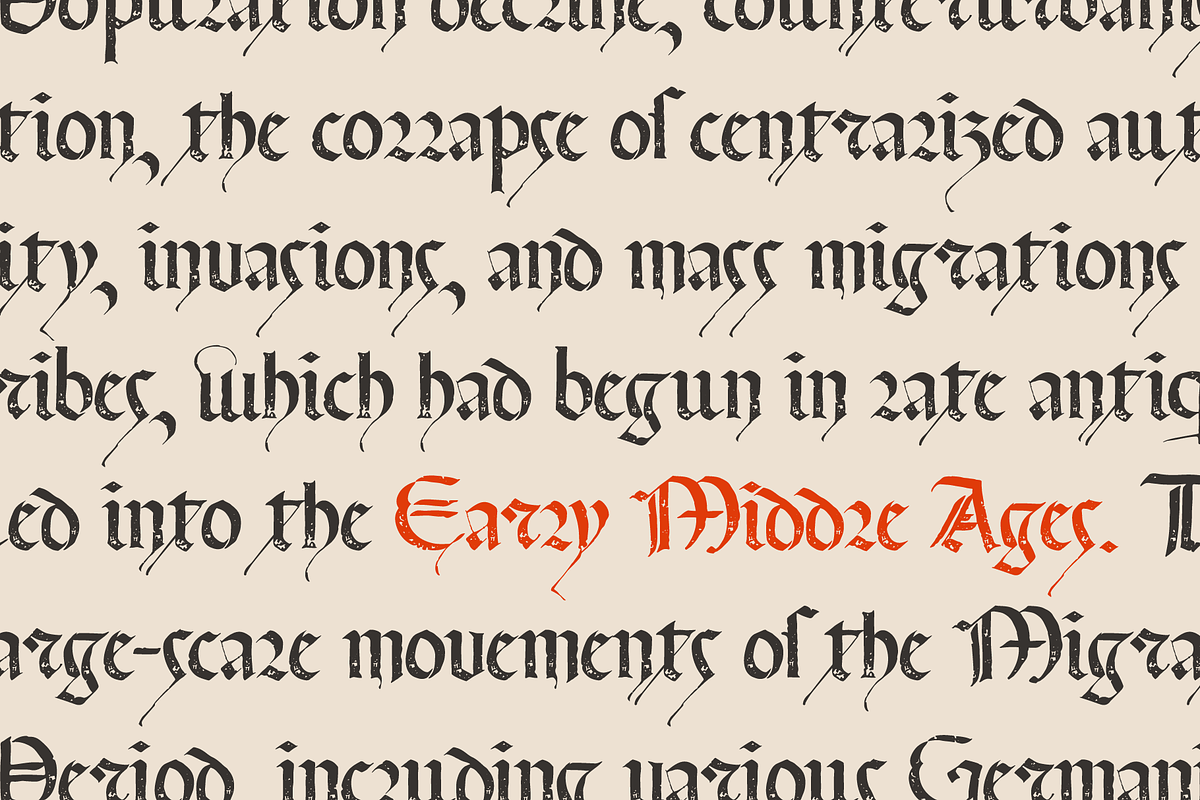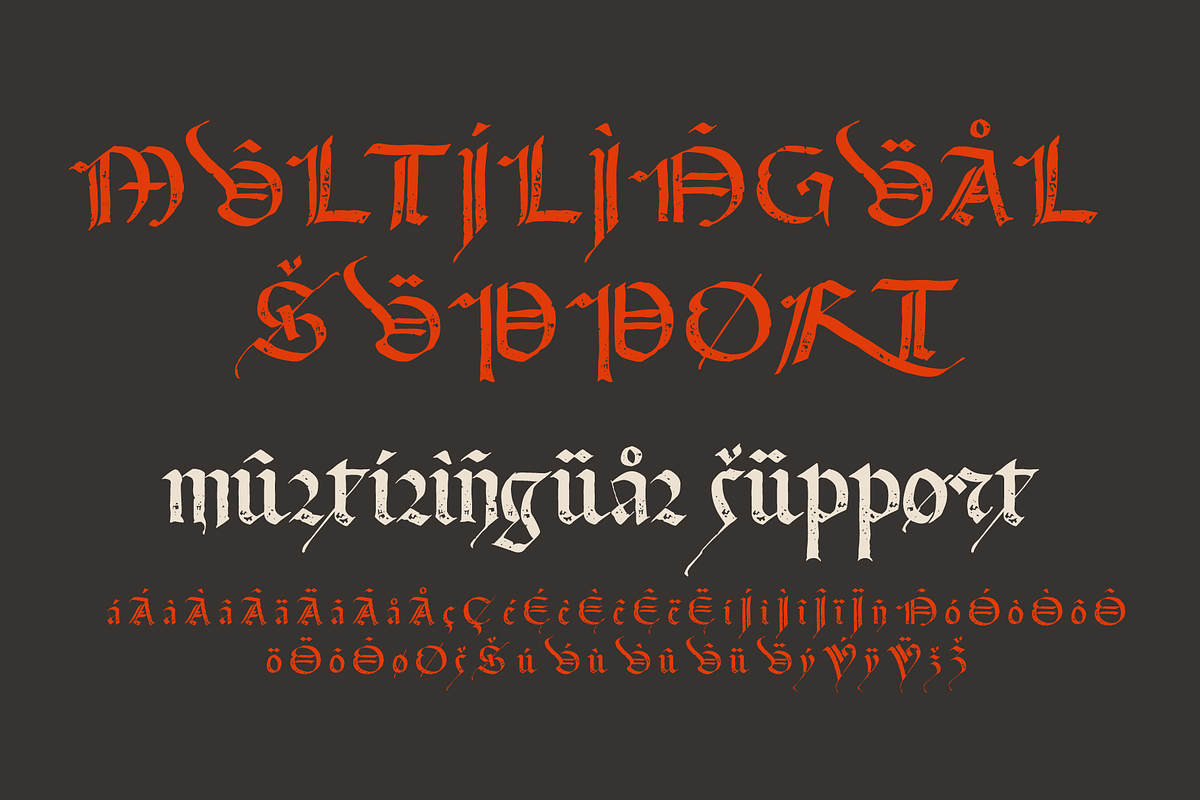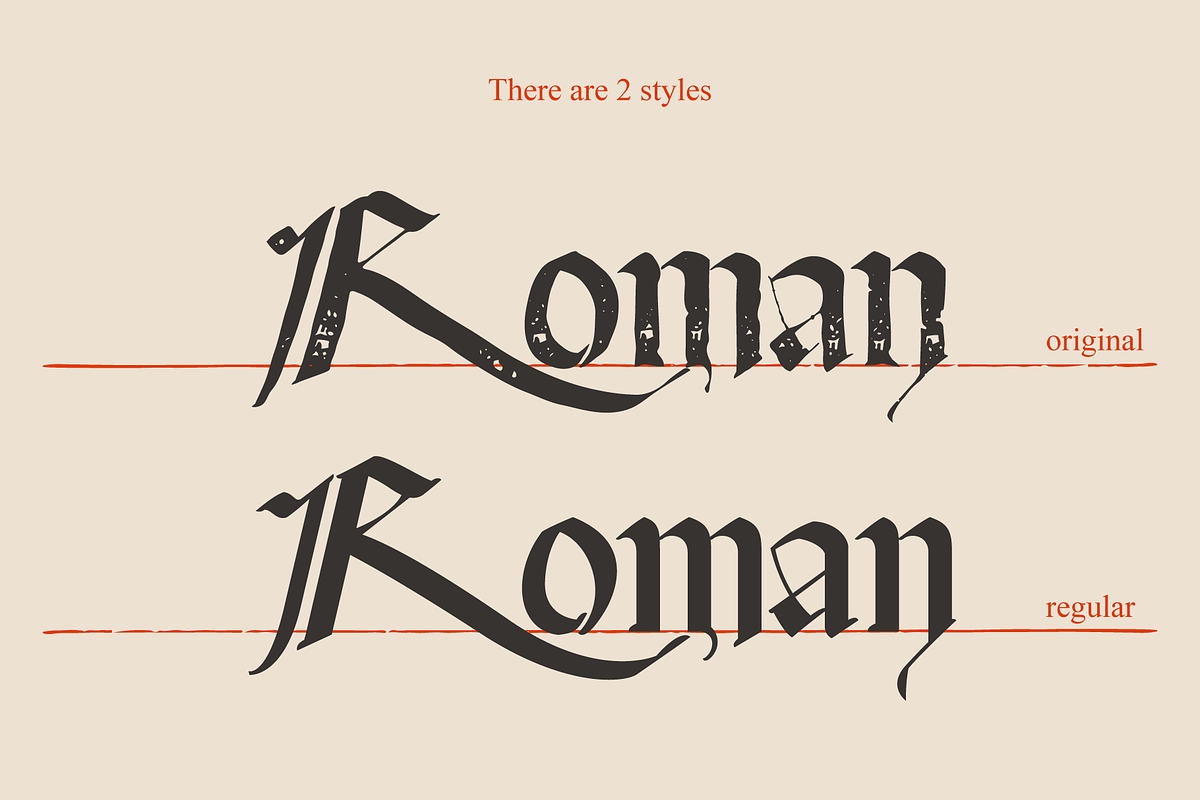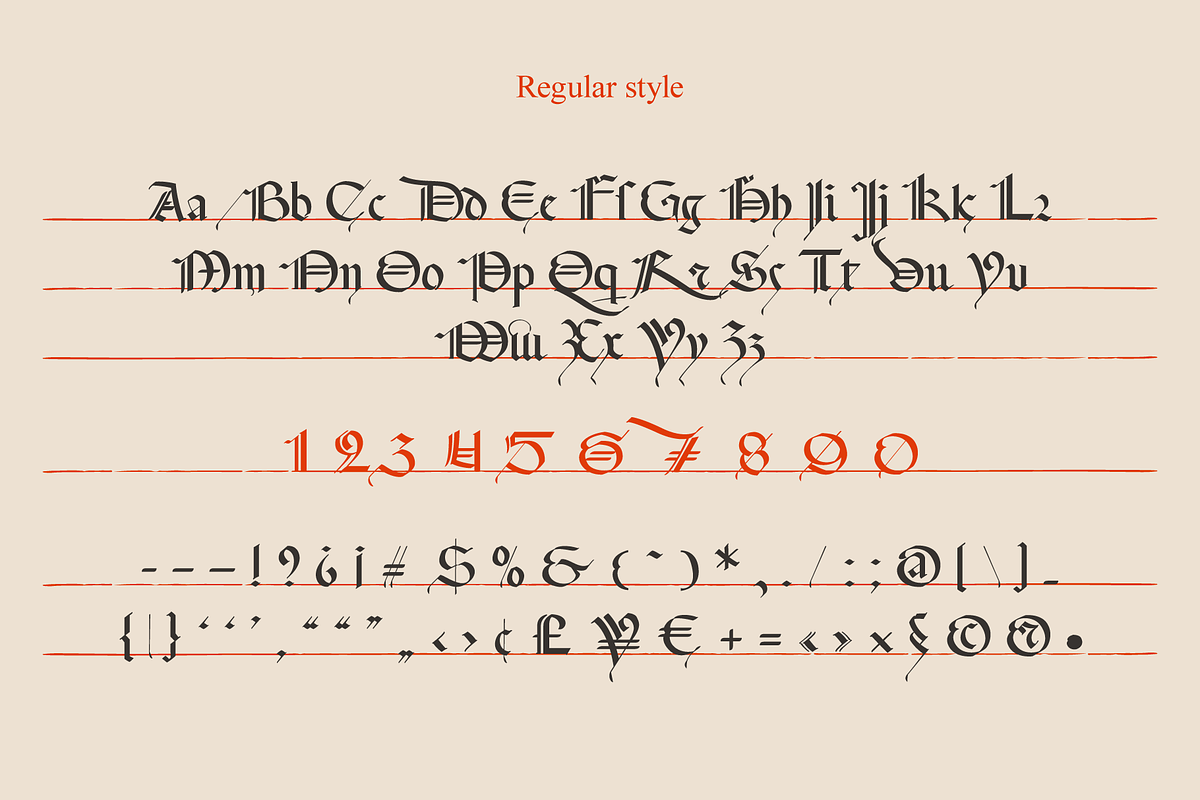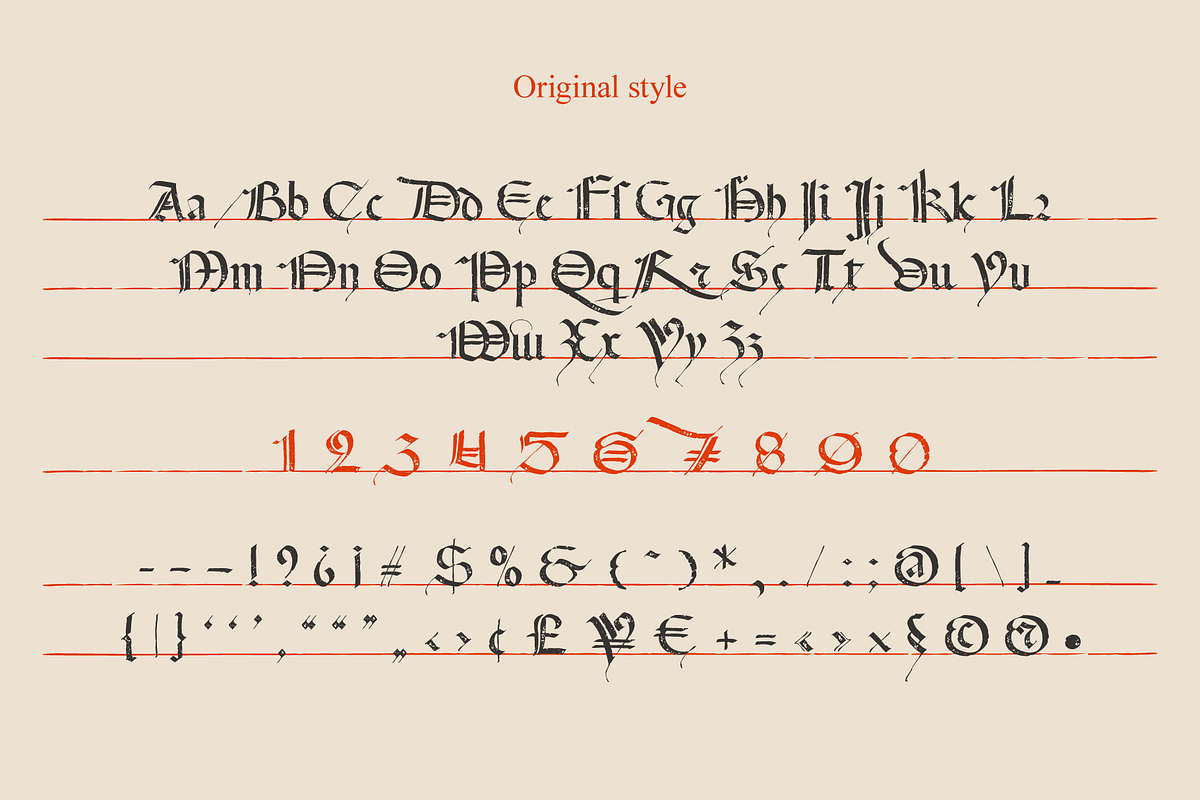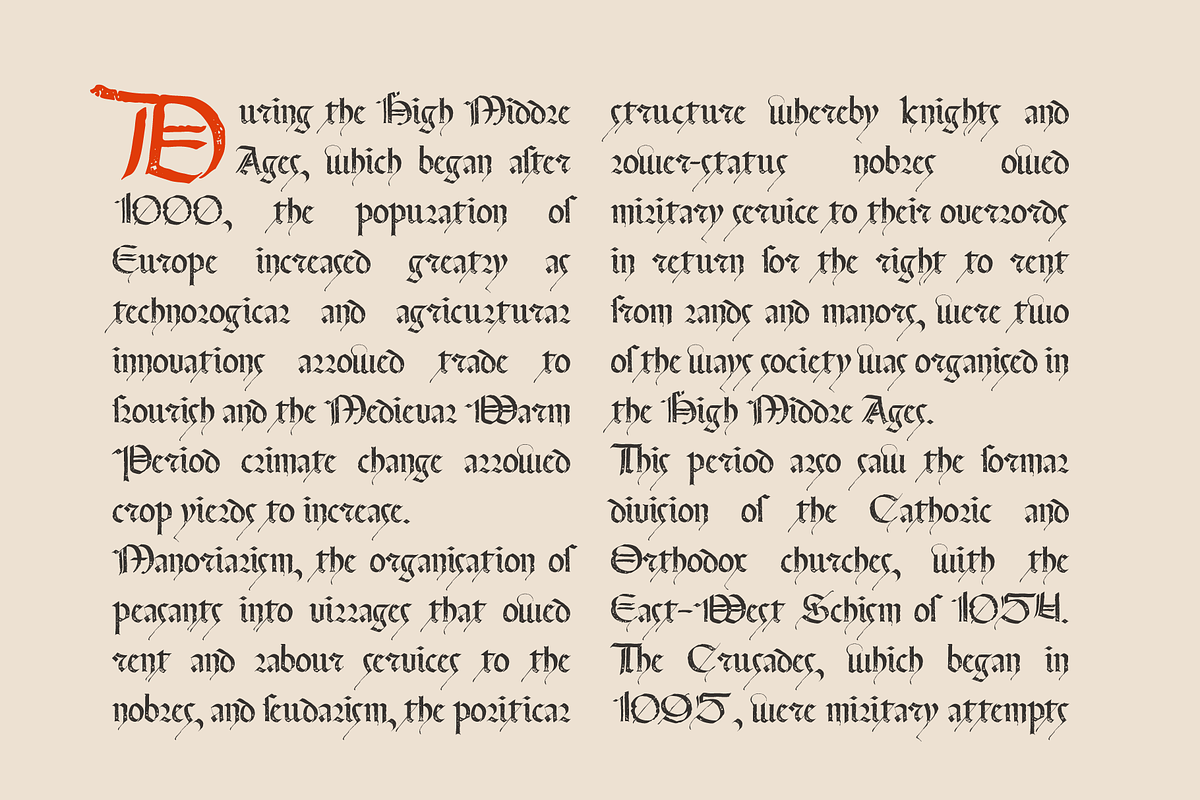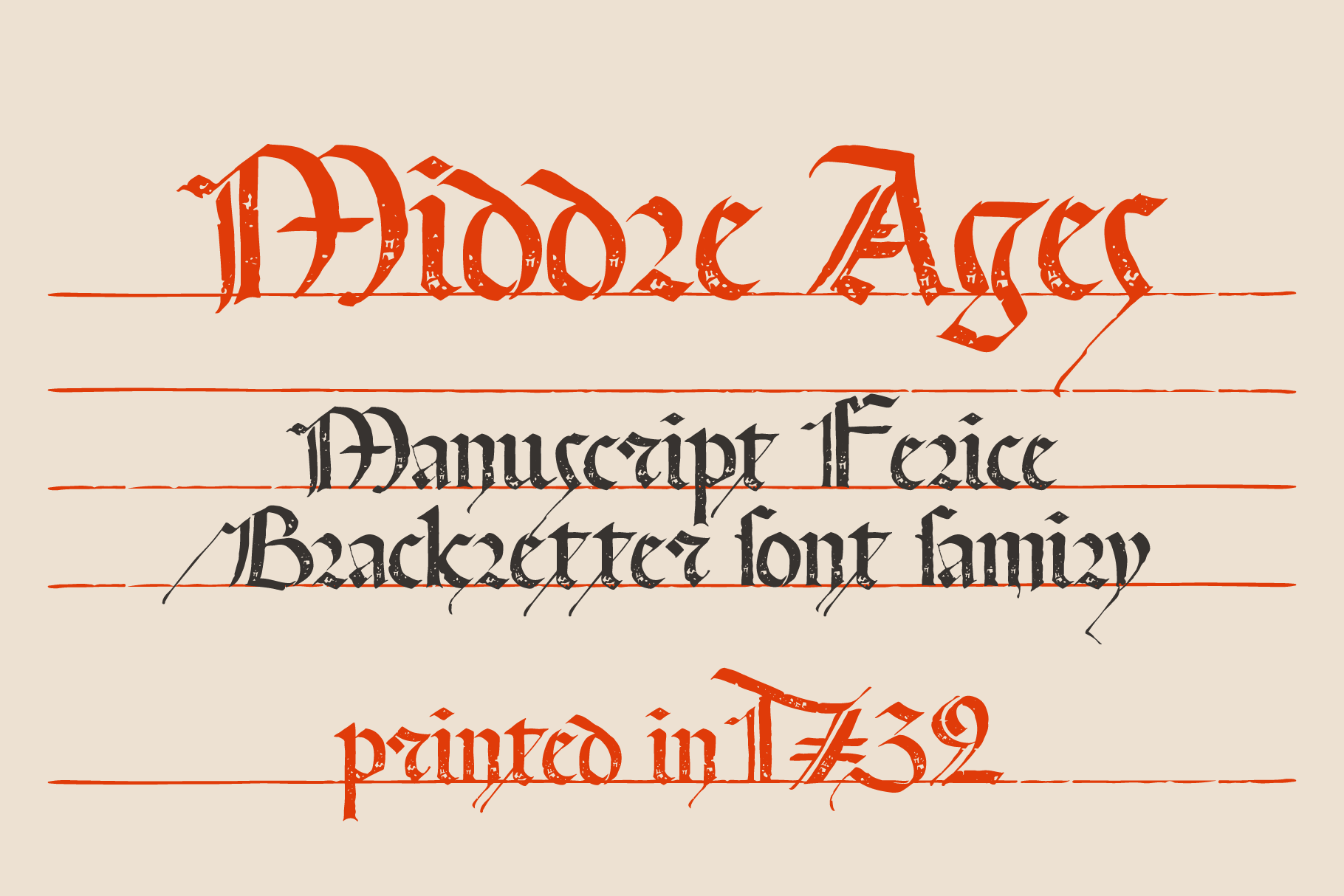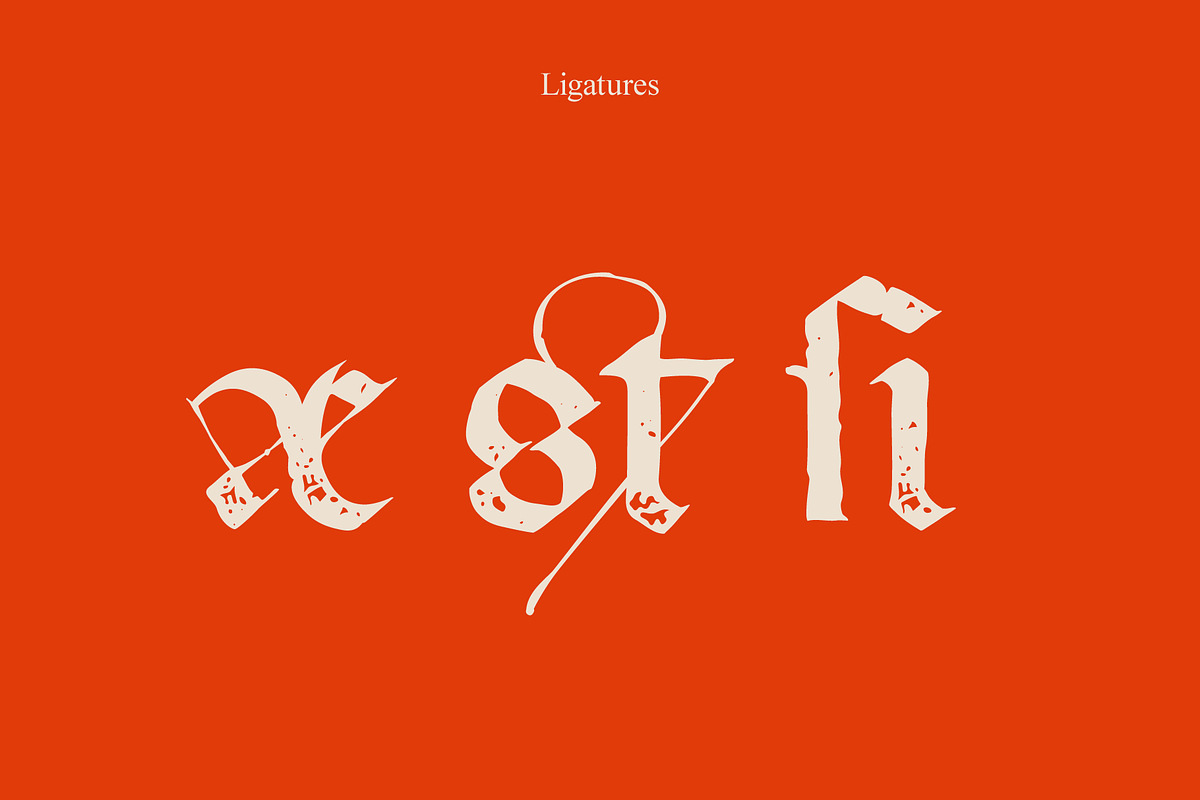
Manuscript Felice blackletter font
Manuscript Felice blackletter font family with 2 styles.
This font family based on vintage Italian Processional manuscript. The book block has disintegrated, and I don’t know who is the author. Luckily I found the last owner, Felice Osio and the last date 1634. That's all) I manually redesign original and regular style fonts from this folio. Also, I’ve added some modern symbols. With this set, you can precisely imitate medieval style text.
- Initials & Regular styles